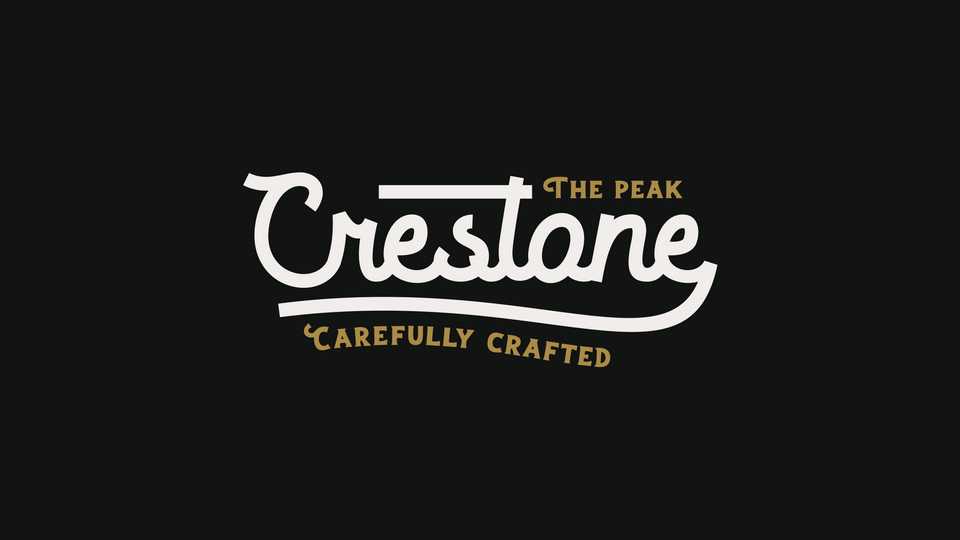
Download Crestone font, an old fashioned script with sharp edges that gives you classic touch with a strong feel. Crestone works perfectly as a title, headlines and logotype with nature and vintage sport vibe in it.